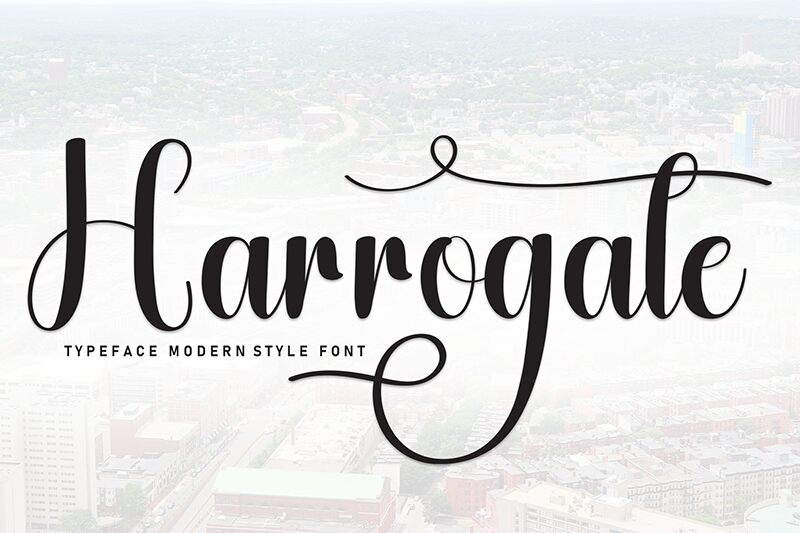
Harrogate
Harrogate font is a calligraphy font designed by Andi Moz to help you express yourself. The free calligraphy font has an elegant style and an ornate feel, which makes it an exciting decorative tool to use in your graphic design project. Its sophisticated execution goes along with both modern and classic designs.